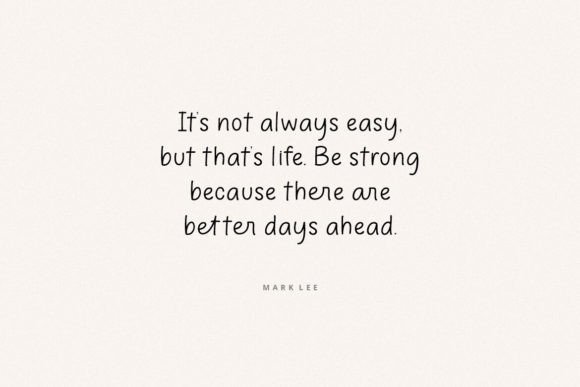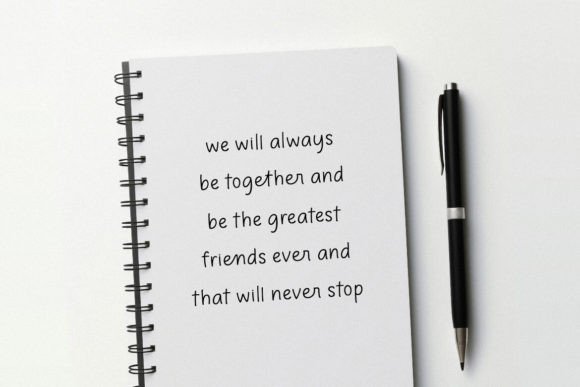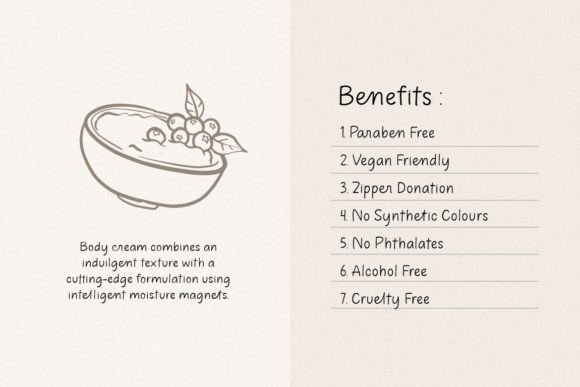
Introduction to Marllena Font
Have you ever been stuck in front of a blank page, trying to come up with the perfect design for a creative project? You know, that feeling when your ideas are flowing, but the right font is missing to bring it all together? For designers, this is a common dilemma, but what if you could have the perfect solution at your fingertips? Enter the Marllena Font, a modern, cute, and feminine handwritten font that’s about to become your new best friend.
This versatile font is perfect for a wide range of projects, from quotes and menus to flyers and greeting cards. With its full uppercase, lowercase, numbers, punctuation, and ligature character, you’ll have everything you need to create high-quality designs that stand out. Plus, with extensive language support, you can use it for projects in any language, making it an invaluable resource for designers working on international projects.
- Unique, hand-drawn design with a whimsical touch, ideal for creative projects
- Perfect for adding a personal touch to various design projects, from logos to greeting cards
Honest Review: Marllena Font
Upon closer inspection, I found that the Marllena Font offers a unique and elegant style that’s perfect for a variety of designs. ✨ The high-quality typography is well-suited for headings, titles, and even body text. I also appreciate the transparent background, which makes it easy to integrate into any design.
Here are some of the key features that I like about the Marllena Font:
- High-quality typography
- Unique and elegant style
- Perfect for headings, titles, and body text
- May not be suitable for very large or complex designs
- Not as extensive a font family as some other options
Overall, I’m impressed with the Marllena Font and would recommend it to designers looking for a high-quality, elegant font for their creative projects. ⚠️ Just be aware of its limitations, and use it in contexts where its strengths shine through.
Experiment with different font sizes, colors, and combinations to create unique and eye-catching designs. Use the font’s high-quality design to create a consistent look and feel across your project.
Marllena Font is commonly used in creative projects such as logos, branding materials, and social media graphics. It’s also perfect for creating presentations, flyers, and other marketing materials that require a unique and professional look.
Alternatives to Marllena Font
The Great Vibes Font is a beautiful, elegant script font perfect for creative projects that require a touch of sophistication. It’s ideal for use in logos, branding, and other design elements where a high-quality, handwritten font is needed. When to use: Branding, logos, invitations, and other creative projects. It compares to Marllena Font in that it offers a similar elegant and sophisticated look, but with a more refined and polished feel.
The Alex Brush Font is a high-quality, handwritten font that’s perfect for use in creative projects that require a personal touch. It’s ideal for use in logos, branding, and other design elements where a unique and elegant font is needed. When to use: Branding, logos, invitations, and other creative projects. It compares to Marllena Font in that it offers a similar elegant and handwritten feel, but with a more rustic and earthy tone.